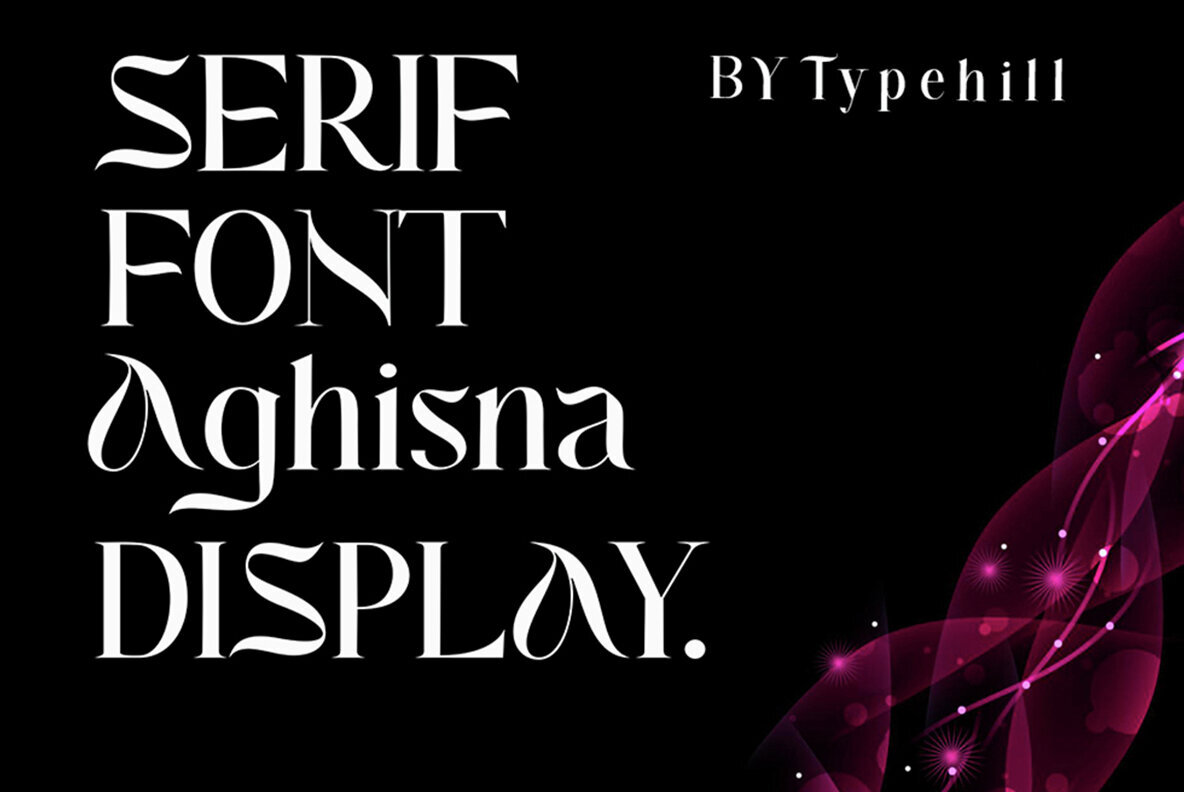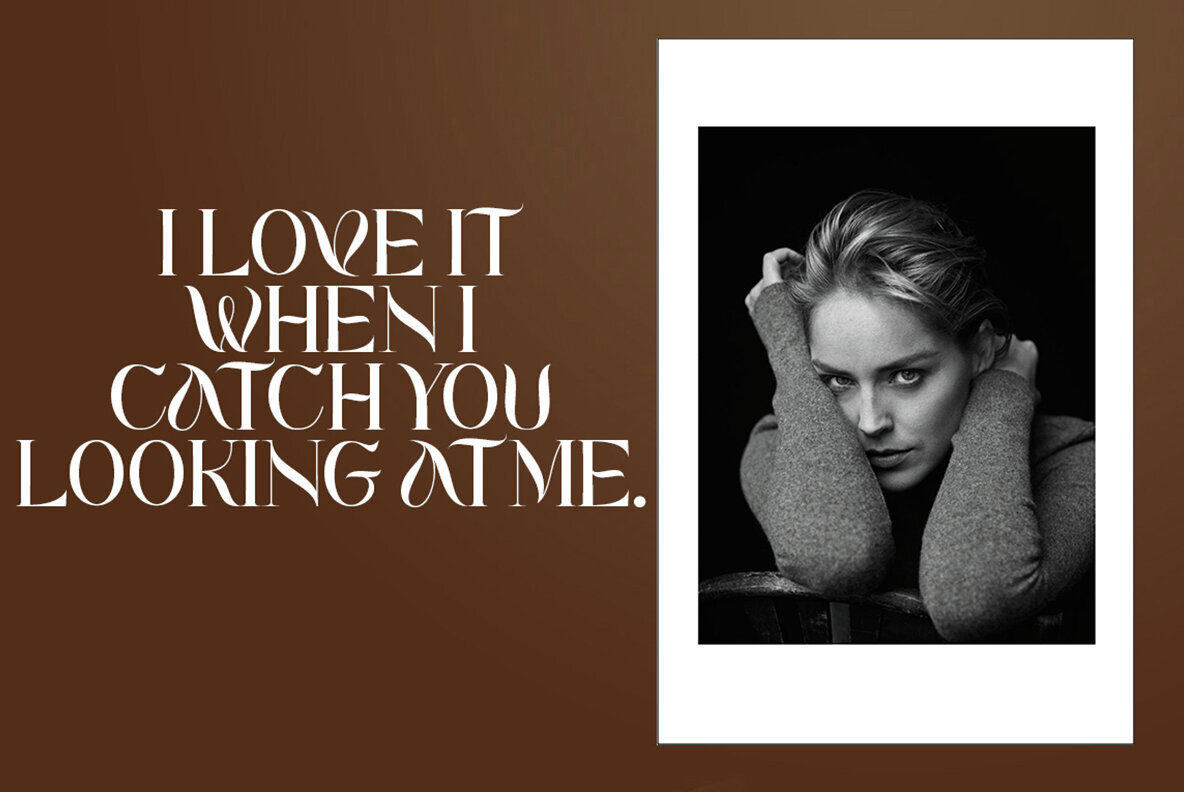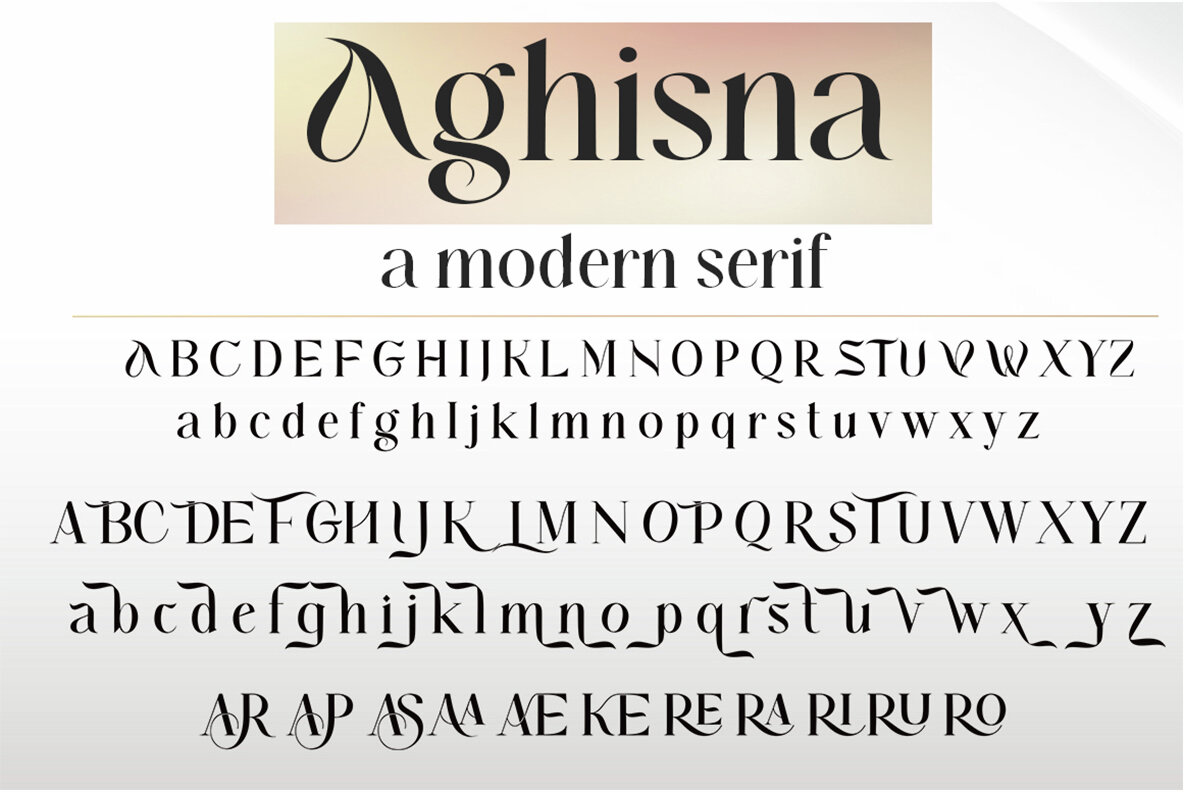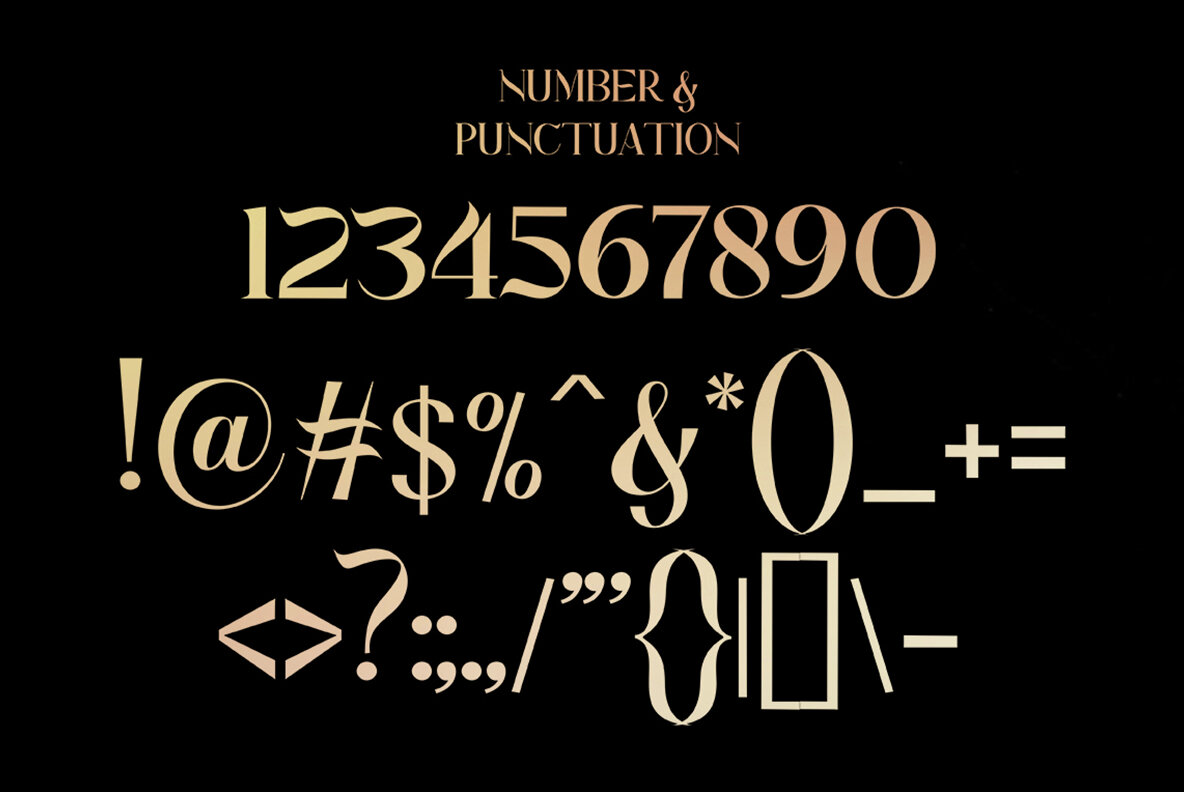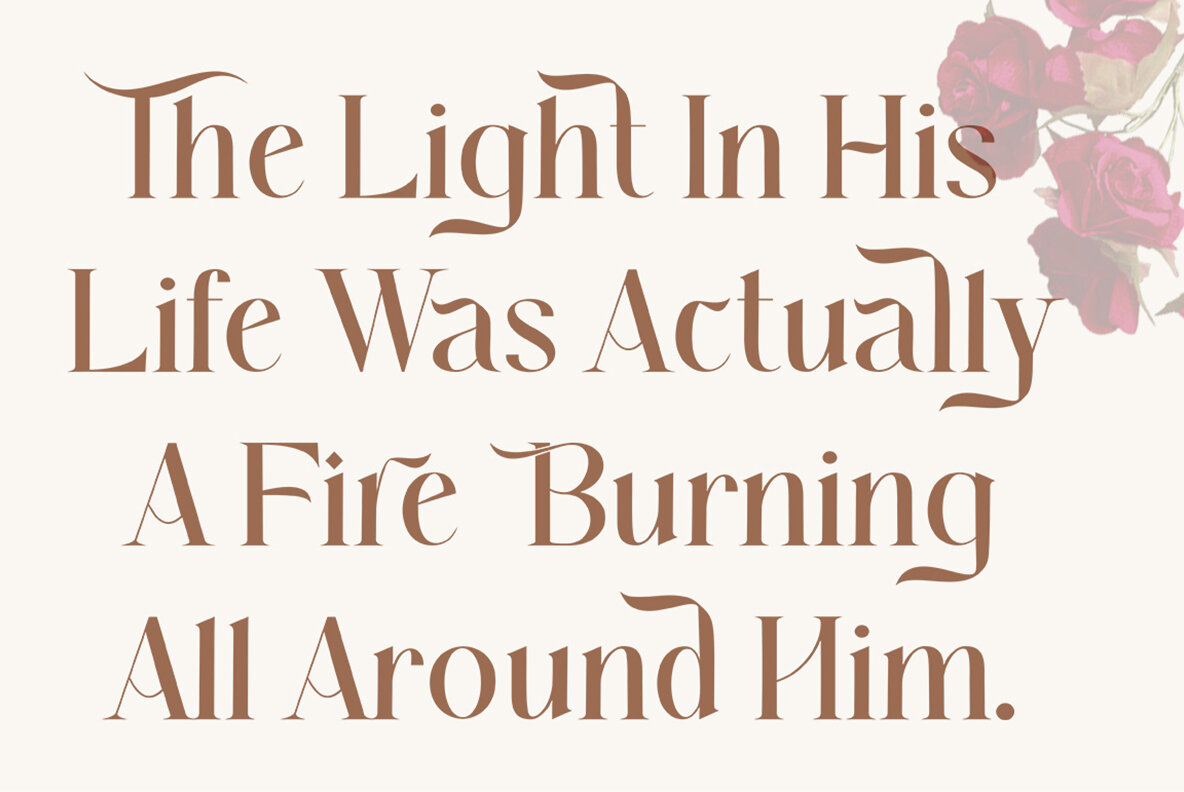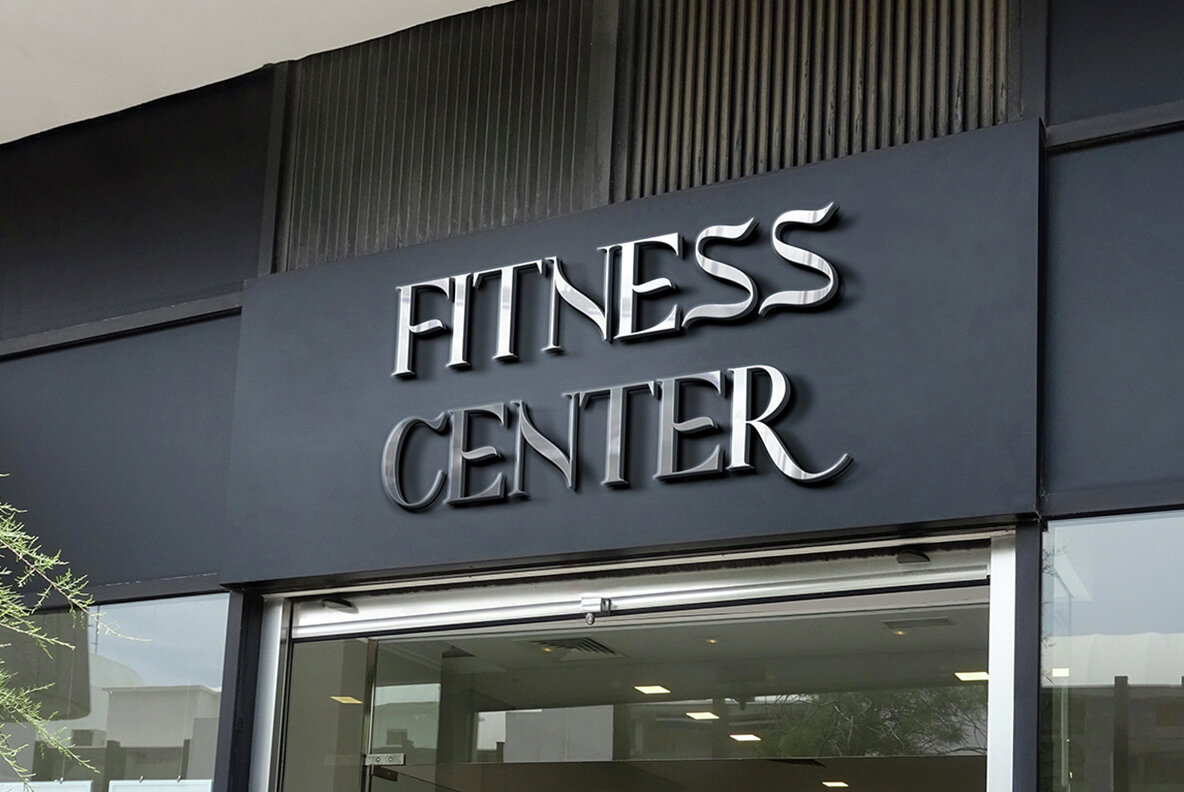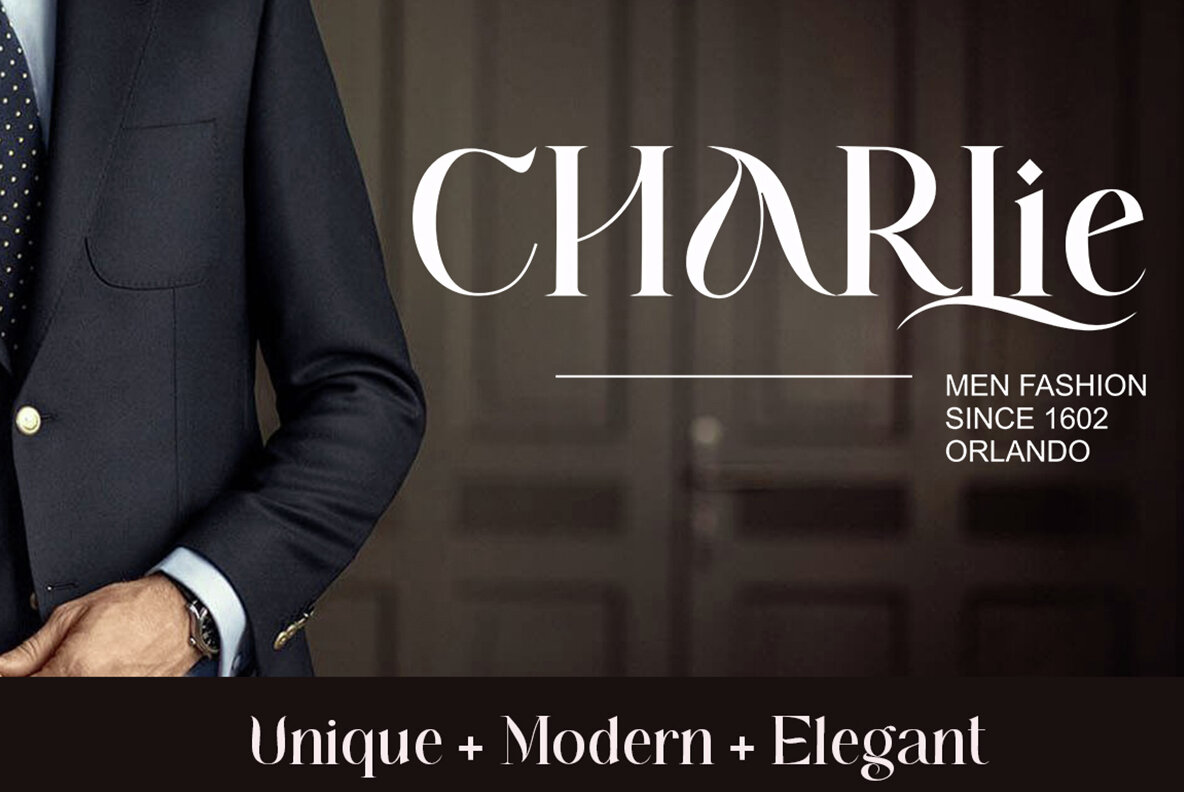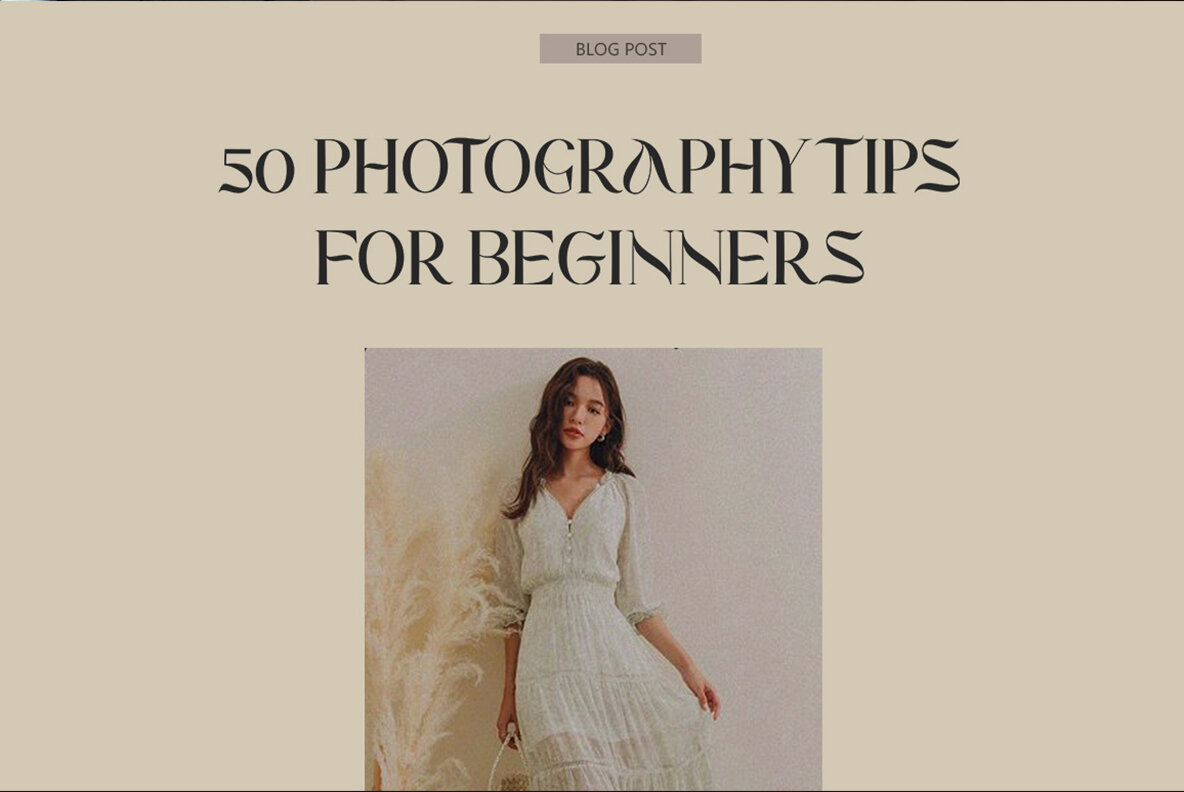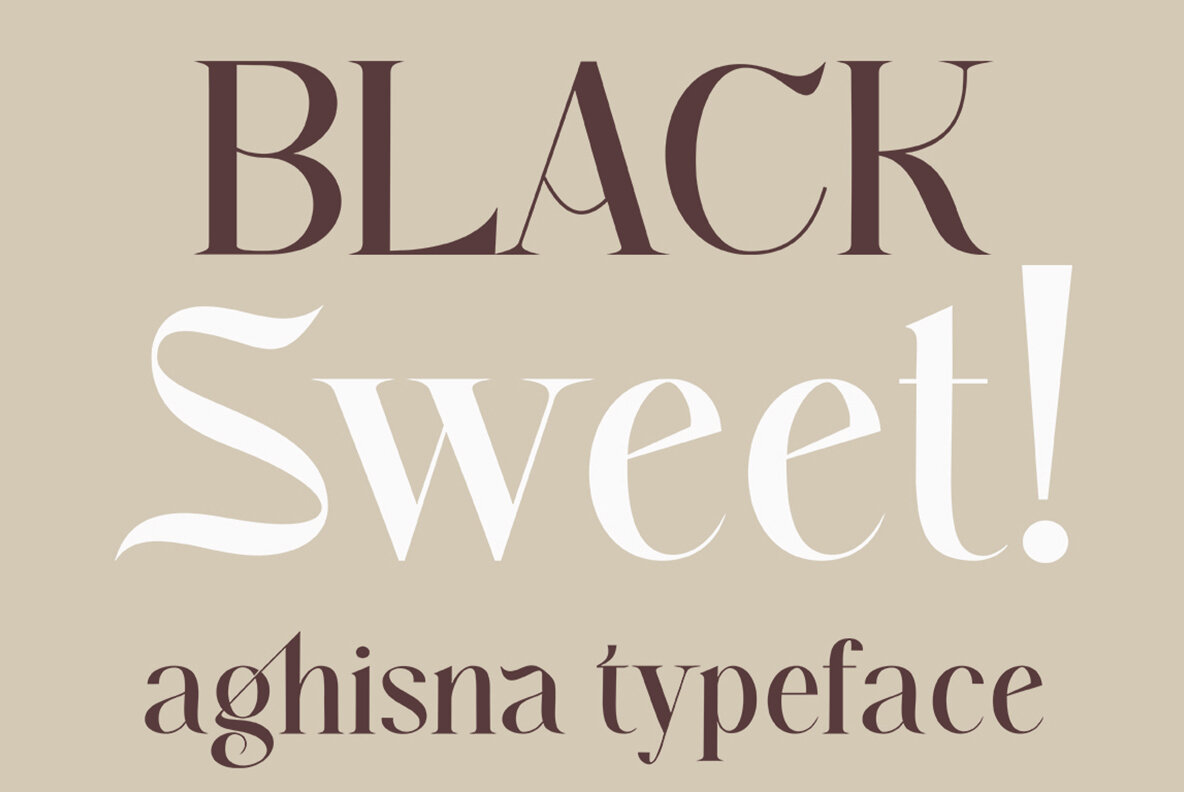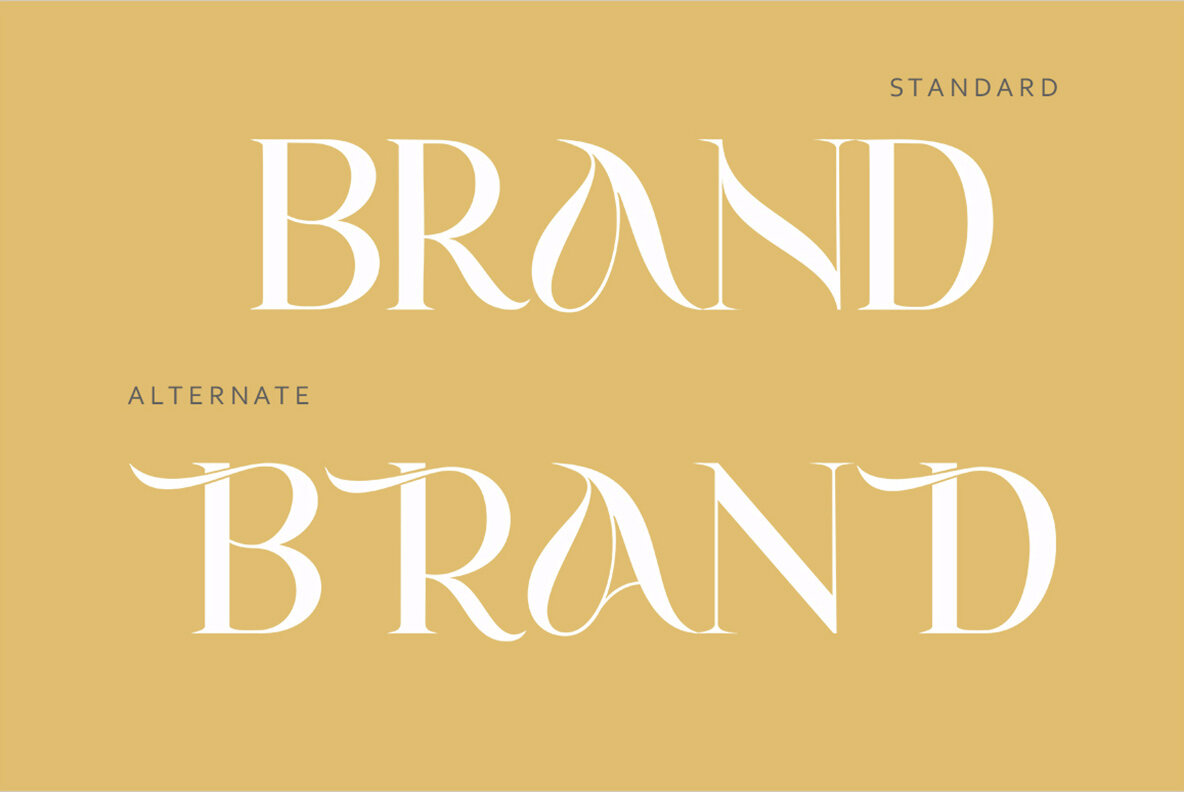
Aghisna Display Font
Aghisna Display
Aghisna Display is a typeface that embodies smoothness, elegance, and modern femininity. Its unique, glamorous, and simple design makes it incredibly easy to read, blending classic style with contemporary appeal.Aghisna Display: A Graceful Typeface